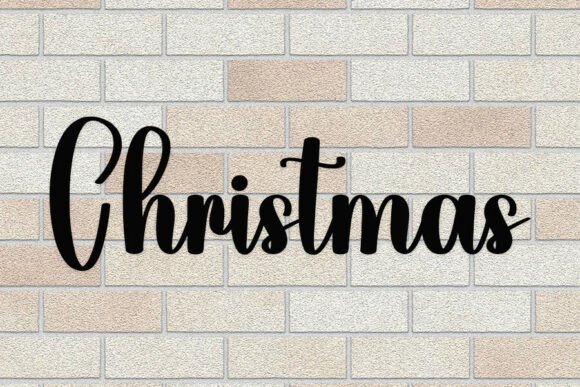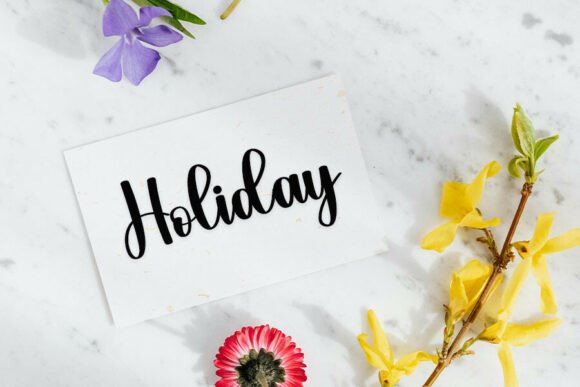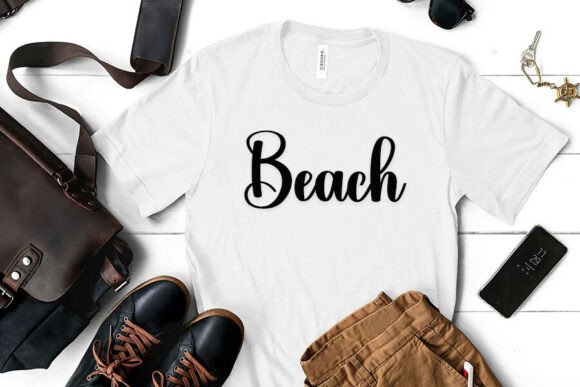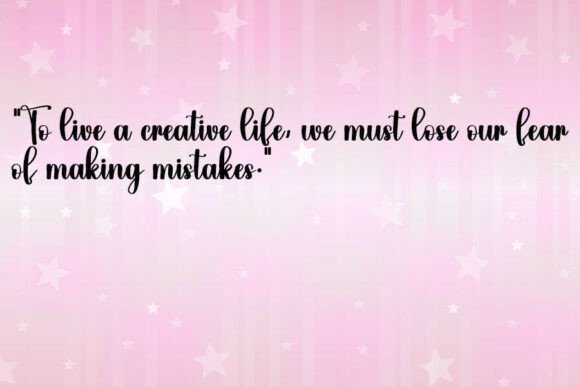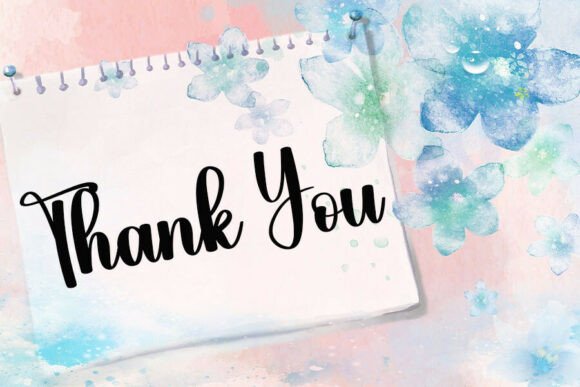
Introducing Divine Font: The Sweet and Cursive Handwritten Font for Elegant Designs
Are you looking for a font that can add a touch of elegance and romance to your designs? Look no further than Divine Font, a sweet and cursive handwritten font that is perfect for a variety of design projects. With its gentle and flowing curves, Divine Font is sure to make your designs stand out and leave a lasting impression.
What Makes Divine Font Special?
Divine Font is a unique and beautiful font that is designed to add a joyful and romantic touch to your designs. Its cursive and handwritten style gives it a personal and elegant feel that is perfect for a range of design projects, from branding and logos to wedding invitations and greeting cards.
One of the key features of Divine Font is its versatility. It can be used for a wide range of design ideas, including:
- Branding and logos: Create a lasting impression with a custom logo or brand identity that showcases your unique style and personality.
- Wedding things: Make your wedding invitations, programs, and decorations truly special with Divine Font’s elegant and romantic style.
- Greeting cards: Add a personal touch to your greeting cards and make them stand out from the crowd.
- Fashion and lookbook: Create a stunning fashion lookbook or catalog with Divine Font’s elegant and sophisticated style.
- Marketing promotion: Use Divine Font to create eye-catching marketing materials, such as brochures, flyers, and posters.
Why Choose Divine Font?
There are many reasons why Divine Font is the perfect choice for your design projects. Here are just a few:
- Elegant and sophisticated: Divine Font has a elegant and sophisticated style that is perfect for designs that require a touch of luxury and refinement.
- Versatile: Divine Font can be used for a wide range of design projects, from branding and logos to wedding invitations and greeting cards.
- Easy to read: Despite its elegant and cursive style, Divine Font is easy to read and understand, making it perfect for designs that require a clear and concise message.
- Unique: Divine Font is a unique and distinctive font that will help your designs stand out from the crowd.
How to Use Divine Font in Your Designs
Using Divine Font in your designs is easy. Here are a few tips to get you started:
- Pair it with other fonts: Divine Font looks great when paired with other fonts, such as sans-serif fonts or serif fonts. Experiment with different font combinations to find the perfect look for your design.
- Use it for headings and titles: Divine Font is perfect for headings and titles, where its elegant and cursive style can really shine.
- Add some flair: Use Divine Font to add some flair to your designs, such as with swashes or flourishes.
Whether you’re a professional designer or a crafter, Divine Font is the perfect choice for any design project. Its elegant and sophisticated style, combined with its versatility and ease of use, make it an ideal font for a wide range of design applications. So go ahead, get creative, and see what amazing designs you can create with Divine Font!